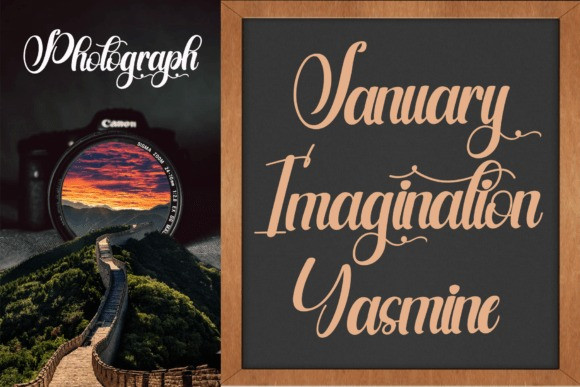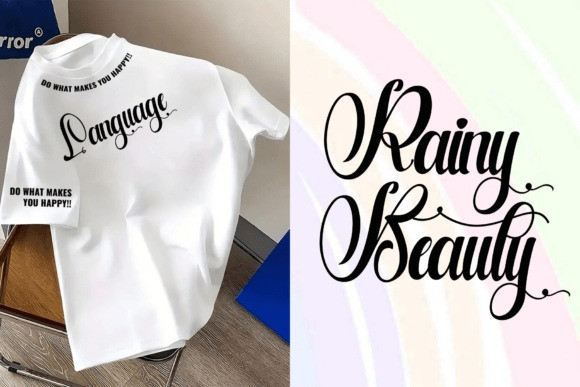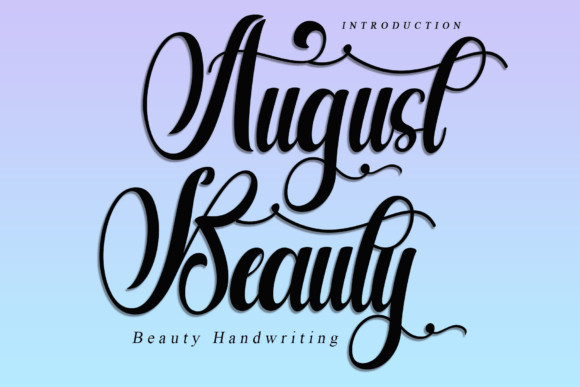
August Beauty Font
August Beauty Font is a luxurious script font with dramatic swashes and elegant curves. Inspired by classic calligraphy, this typeface is ideal for upscale branding, food packaging, wedding invitations, or any project that needs a touch of refined charm. Its graceful flow and high contrast strokes give it a timeless, sophisticated feel.